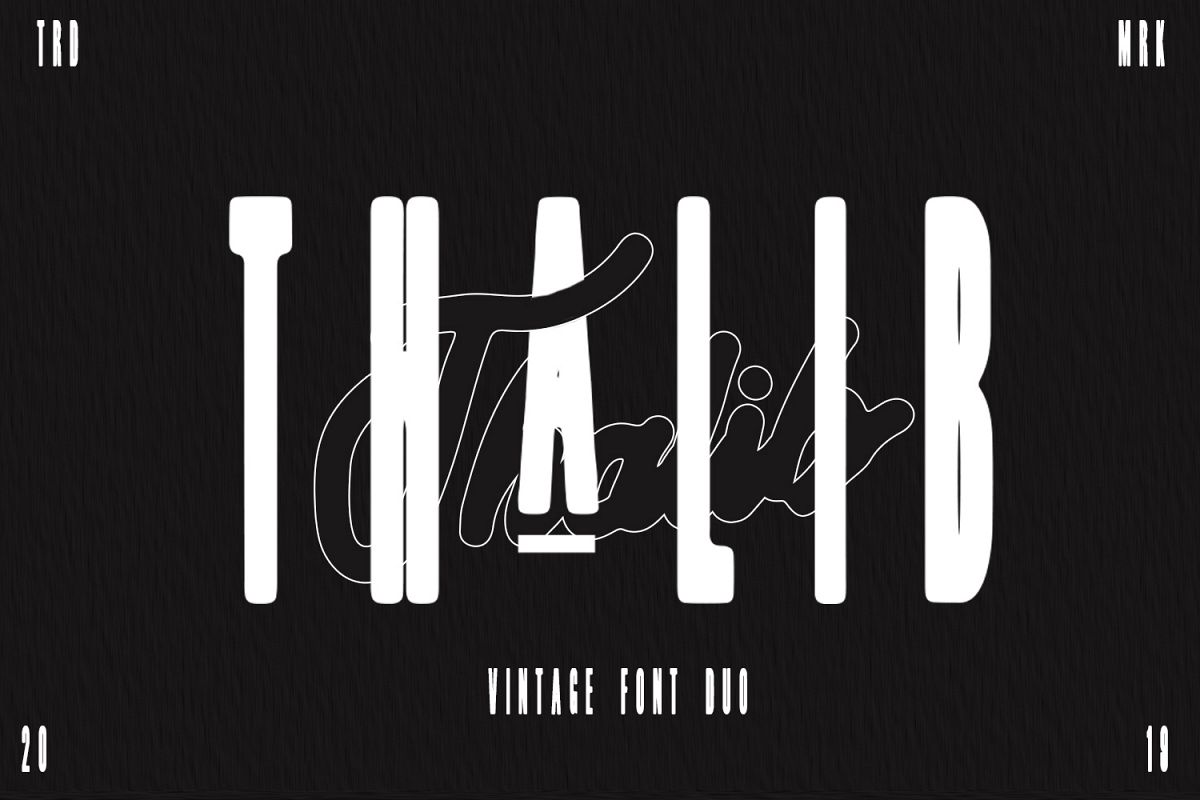
Thalib - Font Duo
Thalib adalah font duo, these 2 make an interesting pair. Both typefaces are perfect for creating Logos. Calibre Super Condensed lends itself to fashion, label design & apparel while Thalib perfect for logos for Photographers, Artists, Etc. Combined, they yield a distinctly fresh & modern vibe.